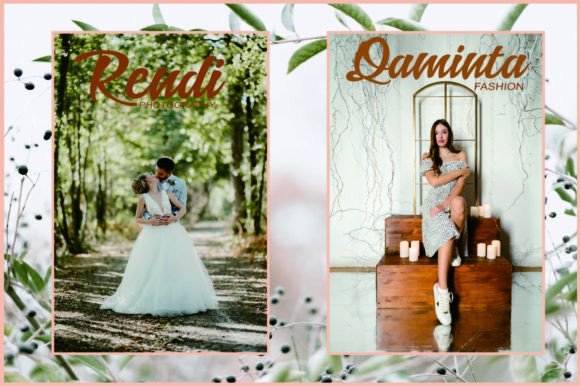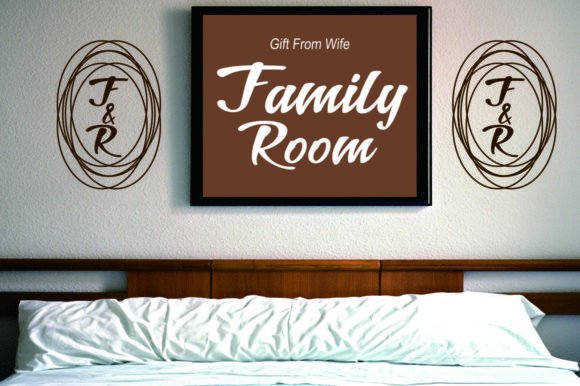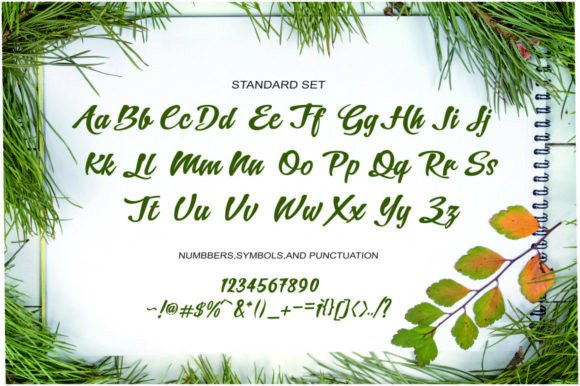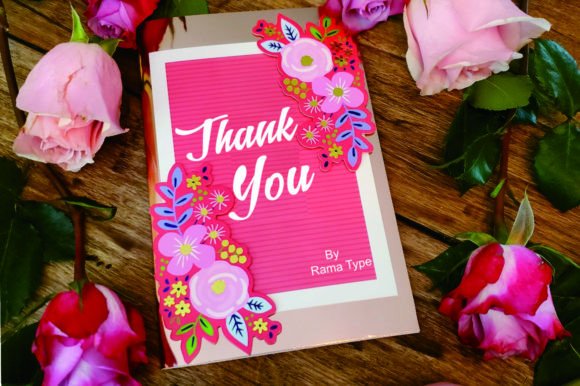
Remember that moment when you stumbled upon the perfect font, and your entire design concept came together in an instant? It’s a feeling that’s hard to replicate, but with the right tools, you can get close. For designers looking to add a touch of elegance and whimsy to their projects, the Bestie Anime Font is an excellent choice.
This soft and sweet calligraphy typeface features characters that dance along the baseline, giving it a casual yet sophisticated feel. Whether you’re creating a logo, wedding invitation, or t-shirt design, the Bestie Anime Font is versatile and easy to use. Its value lies in its ability to add a personal touch to your designs, making them stand out from the crowd.
- Font Style: Cursive, with a playful and bubbly feel, ideal for anime-inspired designs and creative projects.
- Unique Characteristics: The Bestie Anime Font features intricate details, swashes, and flourishes, adding a touch of whimsy and personality to any design.
Review of Bestie Anime Font
I recently had the chance to try out the Bestie Anime Font, and I must say it’s a font that’s sure to capture the attention of anime fans everywhere. Here are my thoughts on what works well and what doesn’t.
- ✨ Unique style: The Bestie Anime Font has a distinctive look that sets it apart from other fonts. It’s perfect for anyone looking to add a touch of anime flair to their designs.
- ✨ Versatility: Despite its anime theme, this font is surprisingly versatile and can be used in a variety of contexts, from logos to posters to social media graphics.
- ⚠️ Limited character set: One of the main drawbacks of the Bestie Anime Font is its limited character set. This can make it difficult to use for longer pieces of text, such as paragraphs or articles.
- ⚠️ Not ideal for body text: Due to its decorative nature, the Bestie Anime Font isn’t well-suited for use as body text. It’s best reserved for headlines, titles, and other emphasis.
Overall, I think the Bestie Anime Font is a great choice for anyone looking to add a touch of anime flair to their designs. While it may have some limitations, its unique style and versatility make it a great option for creatives.
To get the most out of the Bestie Anime Font, use it in conjunction with other design elements that match its playful and vibrant aesthetic. Experiment with different font sizes, colors, and styles to create a unique look.
The Bestie Anime Font is commonly used for creating social media graphics, animated GIFs, and posters for anime or manga-themed events. It’s also a popular choice for adding a touch of Japanese flair to designs.